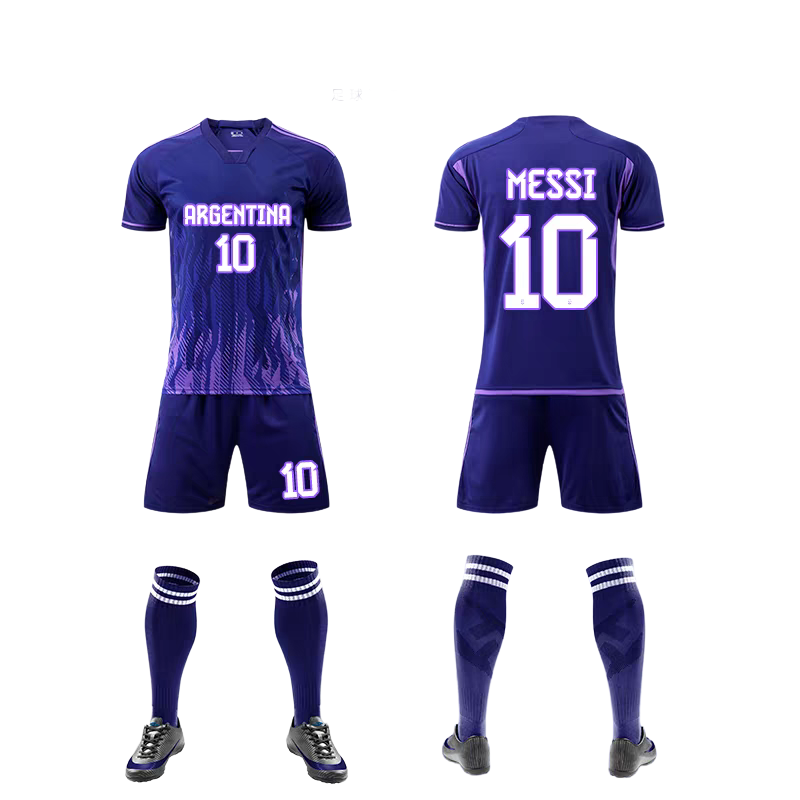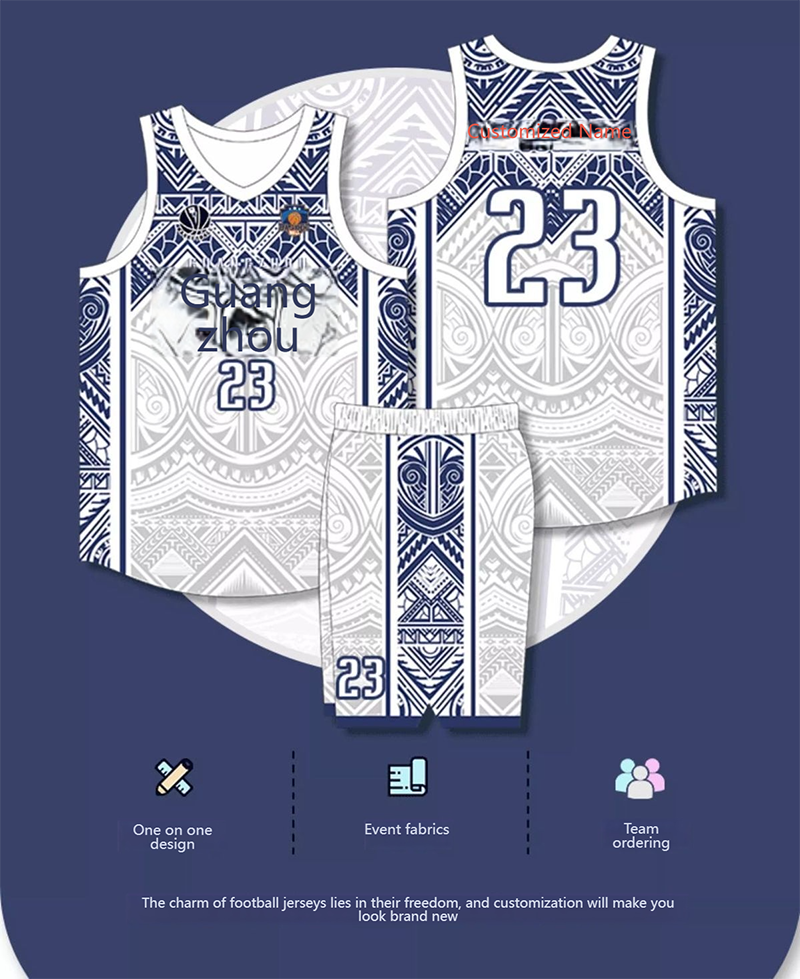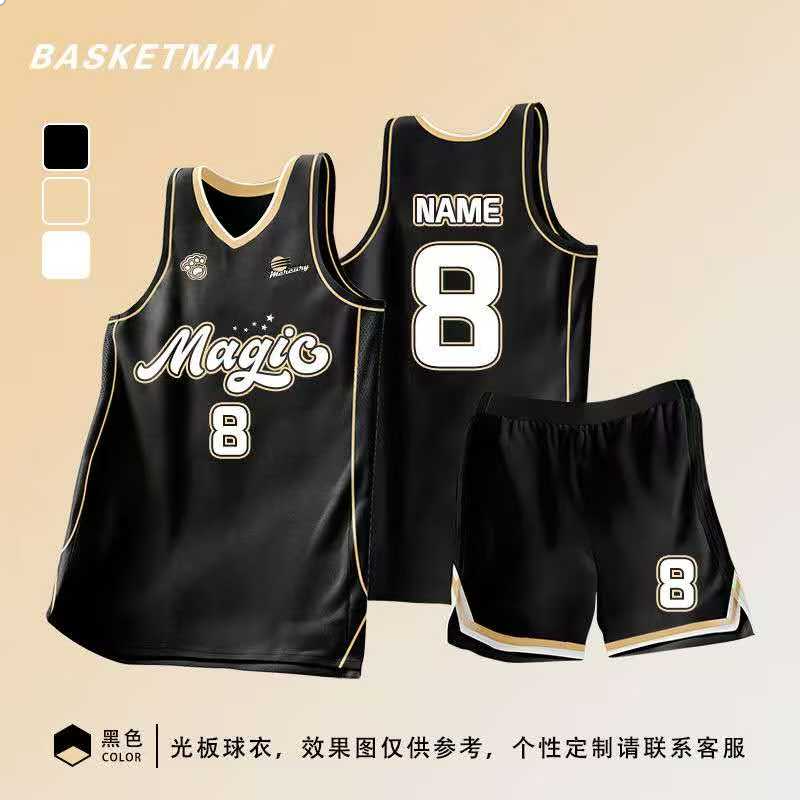
Jersey M54 Font: The Art and Science of Jersey Font Layout in Sports Suit Clothing
With the popularization of sports activities subculture, jerseys aren’t simply a chunk of clothing; they represent the identification of athletes and the spirit of teamwork. In this text, we can delve into the significance of jersey font layout and the way it influences the carrying experience. we can also stay up for the developments and challenges inside the destiny of jersey font layout.
Product Introduction: Features of the M54 Series Jerseys
The M54 collection jerseys stand out within the sports apparel market with their particular design and incredible overall performance. here are the specific descriptions in their principal features:
The jerseys on this collection are made from cloth that offers awesome breathability and moisture-wicking properties, ensuring athletes stay dry and secure for the duration of severe physical hobby. The material is dealt with for wrinkle resistance and short-dry talents, making it clean to maintain.
The jersey’s reduce is designed with ergonomics in mind, hugging the body’s curves to offer accurate aid for movement. The match is neither too tight nor too unfastened, putting a balance between flexibility at some stage in exercise and luxury.
In terms of coloration coordination, the M54 collection jerseys are formidable and innovative, proposing an expansion of colourful colors that cater to fashionable aesthetics at the same time as also boosting athletes’ morale. The coloration combos are primarily based on color psychology to beautify athletes’ competitive country.
the attention to element in the jerseys is meticulous, with features like 3-dimensional slicing techniques to create a more defined silhouette; elastic designs on the cuffs and collar for increased comfort; and notable sewing for durability and aesthetics.
Functionally, the M54 series jerseys boast more than one excessive-tech functions. for instance, they may be ready with reflective strips for stepped forward safety during night exercises; antibacterial and scent-resistant technologies to hold the apparel clean; and some styles include smart temperature manage to evolve to distinct climatic situations in the course of workout.
The pattern design of the M54 collection jerseys is uniquely crafted, blending factors of sports activities and style trends. The front typically functions the brand brand and sponsor’s brand, whilst the again displays the athlete’s variety and name, showcasing individuality and group spirit.
The M54 series jerseys also make efforts in environmental sustainability. The fabric is made from recyclable materials, reducing environmental effect. furthermore, the manufacturing process strictly adheres to environmental requirements to ensure the sustainability of the product.
The M54 collection jerseys have gained the prefer of clients with their first rate overall performance, stylish design, and philosophy. whether or not in professional competitions or each day workout, the M54 series jerseys provide athletes with an incredible wearing enjoy.
Font Selection: Analysis of the Application of Jersey M54 Font
The font design of the jersey M54 takes into consideration numerous key factors, and the subsequent is a detailed description of its utility evaluation:
1. Consistency of font style with the general layout of the jersey: The font fashion followed by way of the jersey M54 is easy and current, complementing the fashionable look of the jersey. The font traces are clear without excessive ornament, ensuring standard visual harmony and professionalism.
2. Font length matching the jersey size: inside the jersey M54, the font length fits the show vicinity of the jersey number, group name, and different records, making sure the readability of the textual content. The font length is moderate, neither too prominent nor too first-rate.
three. Font shade matching the jersey material: The font shade is chosen to harmonize with the principle colour of the jersey, commonly the use of contrasting hues to make sure that statistics on the jersey can be honestly diagnosed even from a distance all through the game.
four. Optimization of font spacing: The font spacing within the jersey M54 has been carefully adjusted to ensure that the arrangement of jersey numbers and team names is both aesthetically eye-catching and smooth to discover. The affordable spacing makes the text neither too crowded nor too.
five. readability of the font: considering the usage of the jersey in various environments, the font layout of the jersey M54 takes under consideration clarity in conditions along with direct sunlight and slippery situations after rain. The font contours are clean, ensuring clarity even in unfavourable weather conditions.
1. Identifiability of the font: The font design in the jersey M54 specializes in the shape of letters and numbers, making them without difficulty identifiable during the game. for instance, a completely unique design of numbers “0” and “1” is used to keep away from confusion.
2. present day feel of the font: The font layout of the jersey M54 contains current design elements, showcasing the modernity of the sports brand at the same time as assembly the aesthetic wishes of fans. The font strains are clean with a certain experience of dynamics, resonating with the athletic nature of the jersey.
eight. strong point of the font: The font layout of the jersey M54 has a sure strong point that highlights the crew’s personality. This forte is reflected in the information of the jersey, making it a part of the group’s identity.
1. sturdiness of the font: The jersey M54’s font is printed the use of weather-resistant substances to ensure that the font stays clear even after multiple washes, without fading or blurring.
2. Cultural connotation of the font: The font design of the jersey M54 includes the cultural connotations of the group, such as its records and regional characteristics, making the jersey no longer handiest a chunk of sports equipment but also a carrier of cultural history.
In summary, the software of the font within the jersey M54 reflects the fashion designer’s pursuit of perfection in element. via careful layout of font fashion, size, colour, spacing, and extra, the jersey guarantees functionality and readability while also possessing precise aesthetic and cultural importance.
Design Concept: The Importance of Typography in Jersey Design
the selection and alertness of fonts in jersey layout convey a couple of meanings. here is an analysis of the importance of fonts in jersey design from several aspects:
Fonts, as visual factors of jerseys, are carefully connected to the overall style and brand picture of the jersey. A suitable font cannot simplest beautify the popularity of the jersey however also deliver the group’s personality and spirit.
the location and size of fonts on the jersey without delay have an effect on the notion and functionality. as an instance, the jersey variety and participant’s name at the back need to be sized and styled in concord with the jersey’s cut to make sure clear visibility for the participant at some point of movement, at the same time as maintaining the balance of the jersey.
The style of the jersey font frequently reflects the traditional lifestyle and nearby characteristics of the team. some conventional teams may also pick out fonts with historical heritage to illustrate their long history and cultural historical past. present day groups, on the other hand, might opt for greater minimalist or avant-garde fonts to exhibit their innovation and vitality.
Visually, fonts serve as a focal point on the jersey, and their layout style directly influences the general aesthetic of the jersey. a unique and tremendous font design can stand out among other jerseys, attracting fans’ interest.
Functionally, jersey fonts want to stability splendor and practicality. at some point of the sport, the readability and distinguishability of the font are crucial for sincerely conveying player records. additionally, the layout of the font must don’t forget the jersey’s overall performance in a moist environment, making sure that the writing stays clean and does not fade without difficulty.
In terms of coloration coordination, the healthy between the font and the jersey’s primary shade is also critical. an affordable shade contrast could make the font extra prominent, heading off mixing into the jersey’s heritage, as a consequence enhancing the general visual effect of the jersey.
The layout of jersey fonts have to additionally recall logo promotion and sponsor rights. The font should now not best healthy the crew’s picture but also don’t forget the sponsor’s brand and colorations, ensuring that the jersey design is both aesthetically desirable and commercially treasured.
In summary, the significance of fonts in jersey layout cannot be unnoticed. they’re now not best a mirrored image of the crew’s subculture and logo picture but additionally a key issue of the jersey’s aesthetics and practicality. via carefully designed fonts, jerseys cannot simplest carry the group’s spirit however also beautify the gamers’ performance and the fans’ viewing enjoy.
Production Process: Ensure the quality of fonts and the overall quality of the team jerseys.
The significance of typography in jersey layout is contemplated within the following factors:
1. enhancing logo recognition: As a signature object of sports teams, the typography on jerseys at once impacts the visual identification of the logo. precise typography can quickly differentiate the personalities of different groups, strengthening the logo photograph.
2. growing ecosystem: The typography on jerseys isn’t only a service of information; it’s also part of the stadium atmosphere. clean font lines can bring visible consolation, at the same time as particular font patterns can inject power and into the crew throughout fits.
three. Highlighting crew Spirit: The typography on jerseys isn’t most effective the presentation of participant names and numbers but also can mirror the group’s spirit and values through font design. as an instance, the use of rugged fonts can deliver a experience of strength and resolution inside the group image.
1. Passing on way of life: The typography design on jerseys regularly consists of the long history and cultural traditions of the group. conventional fonts, which include traditional Roman fonts or calligraphy fonts with regional characteristics, can reflect the cultural history and regional features of the crew.
five. creative Expression: The utility of typography on jerseys is likewise a form of creative expression. Designers can create visually creative consequences by using manipulating factors together with the dimensions, thickness, and shape of the font, enhancing the overall aesthetic enchantment of the jersey.
1. useful issues: in addition to aesthetics, typography design ought to additionally keep in mind capability. The typography on jerseys desires to be clear sufficient for visitors and tv broadcasts to pick out. at the identical time, the font layout must also don’t forget the visibility of the jersey below exclusive lighting fixtures situations.
To ensure the satisfactory of typography and the general quality of the jerseys, the subsequent is a detailed description of the production system:
1. uncooked material selection: high-density, breathable fabrics are chosen for the jersey cloth to make certain comfort and sturdiness. For the typography printing component, environmentally pleasant inks are used to make certain shiny hues and resistance to fading.
2. Pretreatment process: earlier than printing the typography, the jersey floor desires to be pre-dealt with, which include cleaning and disinfection, to ensure the cleanliness and adhesion of the printing surface.
3. Typography design assessment: After the layout is finished, the typography wishes to undergo a couple of critiques to make sure that the font design matches the overall style and crew image of the jersey, while assembly the necessities of functionality and aesthetics.
four. high-Precision Printing: advanced printing strategies together with heat transfer and direct jetting are used to make sure the accuracy and clarity of typography printing. throughout the printing manner, the amount of ink and temperature are strictly controlled to avoid blurring or fading.
1. post-Processing strategies: After printing, the jersey undergoes publish-processing, together with slicing and sewing. This step guarantees that the position of the typography is correct and the jersey’s average appearance is maintained.
2. great Inspection: Strict pleasant inspections are carried out at each level of the manufacturing method, such as cloth, printing, and sewing, to make sure the first-rate of the typography and the overall first-class of the jersey.
3. Strict manage: From raw fabric procurement to finished product transport, strict adherence to the production method is observed, and every jersey is meticulously checked to make certain that every product meets high requirements.
Application Case: The Use of Jersey M54 Font in a Famous Sports Event
The jersey font M54 has been widely carried out in diverse sports activities occasions, with the subsequent particular cases:
in the subject of football, the M54 font has been used inside the official jerseys of several top clubs. as an example, a european membership adopted the M54 font on their jerseys for the 2019-2020 season. The font’s clean strains and modern-day feel perfectly matched the group’s visual identification. This jersey seemed frequently in domestic and international fits, turning into an important image of the group’s brand image.
In basketball occasions, the M54 font additionally showcased its particular charm. at the jerseys of an NBA team, the M54 font, with its different thick and skinny versions, highlighted the team’s call and sponsor’s emblem. This font layout no longer simplest more suitable the jersey’s recognition but also boosted the man or woman brand image of the players at the court.
In American soccer activities, the M54 font brought a experience of power to the jerseys with its strong fashion. A professional American soccer team selected the M54 font as the principle font for his or her jerseys, with its rugged traces complementing the crew’s hard fashion. With those jerseys, the group made their manner thru the competition, winning the affection of many fans.
The M54 font additionally holds a place inside the layout of jerseys for tennis, volleyball, and different sports activities. as an example, the official jerseys of a tennis Grand Slam event featured the M54 font, adding an stylish curve and readability to the jerseys, which imparted a feel of the Aristocracy. gamers sporting those jerseys sweat it out on the court docket, earning the applause of the audience.
inside the design of sports clothing brands, the M54 font plays a enormous role as well. Many brands practice the M54 font to their sports T-shirts, pants, and other peripheral merchandise, keeping emblem consistency whilst pleasurable purchasers’ demand for personalisation and fashion.
it’s far worth noting that the M54 font additionally has extraordinary applications in unique occasions. as an instance, all through the Olympics, world Cup, and other worldwide tournaments, the jerseys of diverse country wide teams regularly function the M54 font, showcasing the group’s characteristics and honors. these jerseys have end up a source of satisfaction for athletes from special international locations on the field.
The M54 font’s utility in sports occasions is full-size, not only improving the visible appeal of the jerseys however additionally strengthening the team’s identification and the man or woman logo photograph of the gamers. As sports activities apparel design maintains to adapt, it is believed that the M54 font will shine in even extra amazing occasions.
User Feedback: The Impact of the Jersey Font on the Wearing Experience
The design of the jersey font plays a essential role in enhancing the carrying experience. here is an in depth description primarily based on user remarks:
Font clarity at once influences reputation. If the font at the jersey isn’t always clean, enthusiasts and spectators can also war to perceive player numbers and names while watching the game, which certainly impacts the viewing enjoy. users that the jersey m54 series makes use of excessive-definition font layout, which permits for easy reputation of player statistics even on a quick-moving playing subject.
personalized design meets emotional needs. The jersey isn’t simply device for the healthy however also a image of the participant’s identity. The jersey m54 collection integrates crew characteristics and player personalities into the font design, which includes historical elements of the group, local culture, or iconic symbols of the participant. This customized font design makes the wearer feel proud and strengthens the emotional connection among gamers and fanatics.
comfort and aesthetics are prioritized. while ensuring the splendor of the font, the production procedure of the jersey additionally focuses on the consolation of the font. The jersey m54 collection uses unique materials and era to make certain the softness and breathability of the font, permitting players to remain cozy at some point of motion with out compromising the toughness and beauty of the font.
colour coordination impacts visual appeal. The color of the font at the jersey coordinates with the general jersey color scheme, improving the overall visible impact of the jersey. user comments suggests that the jersey m54 series cautiously considers the heritage colour of the jersey inside the desire of font colour, making the lettering each and no longer overpowering, complementing the overall layout fashion of the jersey.
functional font layout improves practicality. The font design of the jersey m54 collection considers practicality all through athletic activities, consisting of the location of numbers and names, which aligns with ergonomics and facilitates participant interplay and tactical coordination all through the suit. person feedback indicates that this practical font design makes gamers now not most effective appearance stylish of their jerseys however also more gifted in their use.
emblem image and market comments. The layout of the jersey font is likewise part of the logo picture. The jersey m54 collection has established a nice emblem photograph via meticulous font layout and production. marketplace comments shows that purchasers have given the font layout of this collection a high rating, thinking about it no longer best boosts the jersey’s popularity however also enhances the emblem’s competitiveness.
In precis, the layout of the jersey font has a big impact at the sporting revel in. From clarity, personalization, comfort, colour coordination, capability, to logo photo, each detail issues the pleasure of gamers and fans. The successful application of these aspects in the jersey m54 series certainly provides treasured reference for destiny jersey layout.
Industry Outlook: Trends and Challenges in Future Shirt Font Design
The layout of jersey fonts performs a vital position inside the subject of favor and sports. here is a brief description of the future developments and demanding situations:
Font patterns will generally tend toward diversification. With the updating of aesthetic concepts and the boom in personalized desires, the layout of jersey fonts in the future pays greater interest to variety in styles, ranging from classic unfashionable to fashionable avant-garde, with all sorts of fonts being contemplated to satisfy the individual wishes of different manufacturers and athletes.
The fusion of virtual technology with fonts. With the development of technology, the utility of virtual printing technology will make jersey font layout extra flexible and particular. inside the future, virtual generation may be used to gain more complex and specific font consequences, including 3-D printing technology probably being applied to positive excessive-quit jerseys to create 3-dimensional font designs.
The upward thrust of materials. With the enhanced cognizance of environmental safety, the eco-friendliness of jersey fabric and fonts can be promoted. in the future, jersey fonts can be crafted from biodegradable materials, decreasing the impact at the surroundings while maintaining good durability and visible enchantment.
The aggregate of font reputation and brand photo. In a fiercely aggressive sports marketplace, jersey fonts are not handiest a tool for recognizing athletes but additionally a part of the logo picture. Font design will pay more attention to consistency with brand trademarks and the overall visible design of the jersey, enhancing brand recognition.
The fashion of customized customization. With consumers’ pursuit of personalization, the customization of jersey fonts turns into a trend. within the future, athletes and enthusiasts may additionally choose exclusive fonts, shades, and patterns to customize precise jerseys to meet the needs of personalised expression.
the notice of font copyright safety. With the professionalization of font design, the importance of font copyright protection will become more and more prominent. within the future, font designers pays greater interest to the maintenance of copyright, and emblem events will also be greater careful in deciding on fonts to avoid infringement issues.
The adaptability of fonts in dynamic conditions. inside the destiny, jersey fonts can also want to remain clear and recognizable in exceptional situations, such as excessive fits or harsh climate. therefore, font layout wishes to take into account the adaptability to these dynamic conditions to ensure an amazing presentation beneath diverse conditions.
Standardization of technical requirements. With the development of jersey font layout generation, there can be a fixed of unified technical standards to make sure the stableness and consistency of fonts in diverse materials and methods.
In precis, the future of jersey font design will face a couple of demanding situations along with varied styles, revolutionary applications of materials, the mixture with brand pics, the call for for personalised customization, the enhancement of copyright safety consciousness, the demanding situations of adaptability in dynamic situations, and the standardization of technical requirements. Designers and manufacturers want to discover a balance among those traits to fulfill the ever-converting needs of the marketplace and consumers.
Similar Posts
• Jersey 63: The Ultimate Sports Suit with Brand Marks & Premium Suits
Jersey63, a excessive-performance sports jersey, stands proud inside the market with its particular sixty three-code design. famend for its light-weight, breathable, and elastic material, it offers comfort and sturdiness for athletes. The jersey’s meticulous craftsmanship, which include excessive-visibility branding and strengthened stitching, guarantees a professional appearance. perfect for each expert athletes and sports fanatics, jersey63 fits various sports activities, enhancing brand identity and performance. Its popularity is reinforced by means of high quality customer opinions, reflecting its great and flexibility within the sports activities jersey marketplace.
• Barstool Sports Jersey Jerry Collection: Unveiling the Q with X Fashion and Quality
The Barstool sports activities Jerry jersey series has grow to be a hit, showcasing unique design factors and colourful colors. Crafted with
substances, those jerseys offer consolation and capability for athletes. The Jerry collection sticks out with its modern styles inspired via road artwork, and functions a signature by means of Jerry himself, improving the collectible fee. Barstool sports has efficiently leveraged social media to enhance brand cognizance and power income, making the Jerry jersey a favourite amongst sports fanatics and creditors alike.
• Qatar Airways Soccer Jersey: Team Jerseys and Uniforms Collection Guide
The Qatar airways jersey has emerged as a sought-after collectible and stylish item amongst soccer fans and aviation fans. recognised for its particular design, combining Qatar’s countrywide colours and aviation issues, the jersey is crafted with , breathable materials for consolation. It capabilities the long-lasting Qatar airlines emblem and includes elements of Qatari subculture, making it a mix of style and functionality. available in various sizes and patterns, consisting of confined edition versions, the jersey appeals to both expert gamers and collectors, solidifying its vicinity as a top rate crew jersey inside the marketplace.
• Total Sports Jersey Printing: IT, Q, X, and Evolution Trends
The evolution of total sports jersey printing, pushed by advancements in era and client needs, has converted the industry. With direct-to-garment (DTG) and switch printing technology, customization and personalization have turn out to be extra reachable. the mixing of digital and smart technology, like nanotechnology in inks and 3D printing, enhances both pleasant and functionality. regardless of demanding situations like environmental worries and regulatory compliance, the enterprise is adapting with improvements in substances, like water-based totally and biodegradable inks, and smart production procedures. This shift towards higher best, sustainability, and personalization maintains to drive increase and opposition within the total sports activities jersey printing marketplace.
• Net Sports Jersey Innovations: IT, Quality, and Customization Trends with X
within the evolving sports activities clothing marketplace, the custom sports jersey has end up a pivotal piece, offering both brand representation and crew spirit. Jersey producers are continuously innovating with substances, designs, and customization offerings. Standardized manufacturing procedures make certain high-quality and efficiency, with advancements in fiber era and high-tech fabric improving performance and luxury. Seamless knitting, three-D printing, and clever function integration in addition decorate these products. Customization offerings cater to precise sizes, designs, and substances, along with
options. market applications variety from expert groups to campus activities, with worldwide growth and virtual advertising playing key roles. The enterprise’s recognition on personalised demand, technological integration, environmental duty, and consumer enjoy drives its ongoing improvement.
• 76ers Jersey: Style, Protection, and Brand Marks Unveiled
The 76ers jersey, a staple in the sports activities garb marketplace, combines overall performance and aesthetic attraction. made from high-tech substances for breathability and elasticity, it boasts a unique layout offering the team’s iconic Philadelphia Eagle and traditional colour scheme. The jersey’s sustainable production, the use of
materials and adhering to environmental requirements, underscores the logo’s commitment to protection and obligation. This combination of favor, first-class, and environmental awareness has made the 76ers jersey a famous desire among lovers and customers alike, marking it as a image of each crew spirit and
fashion.